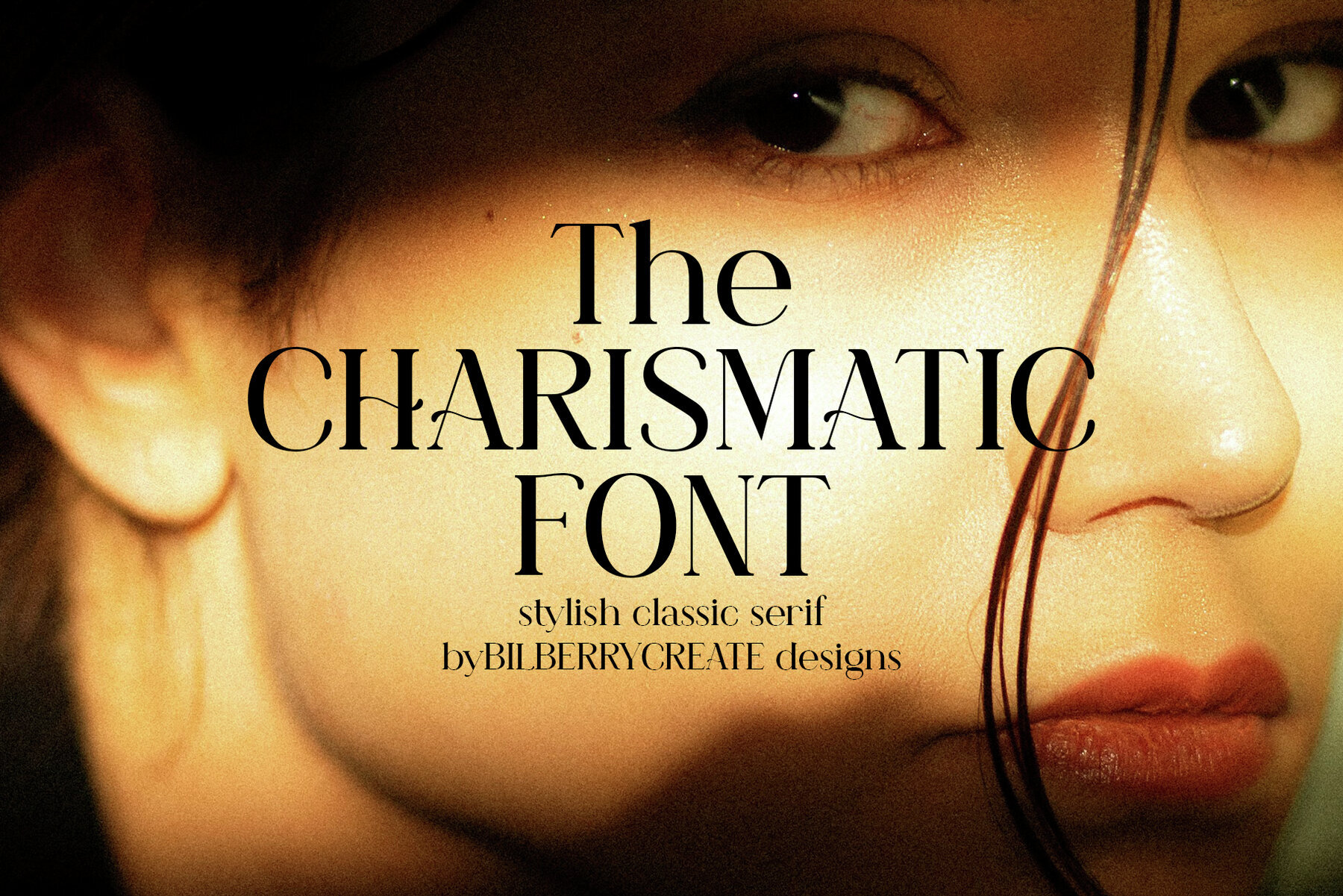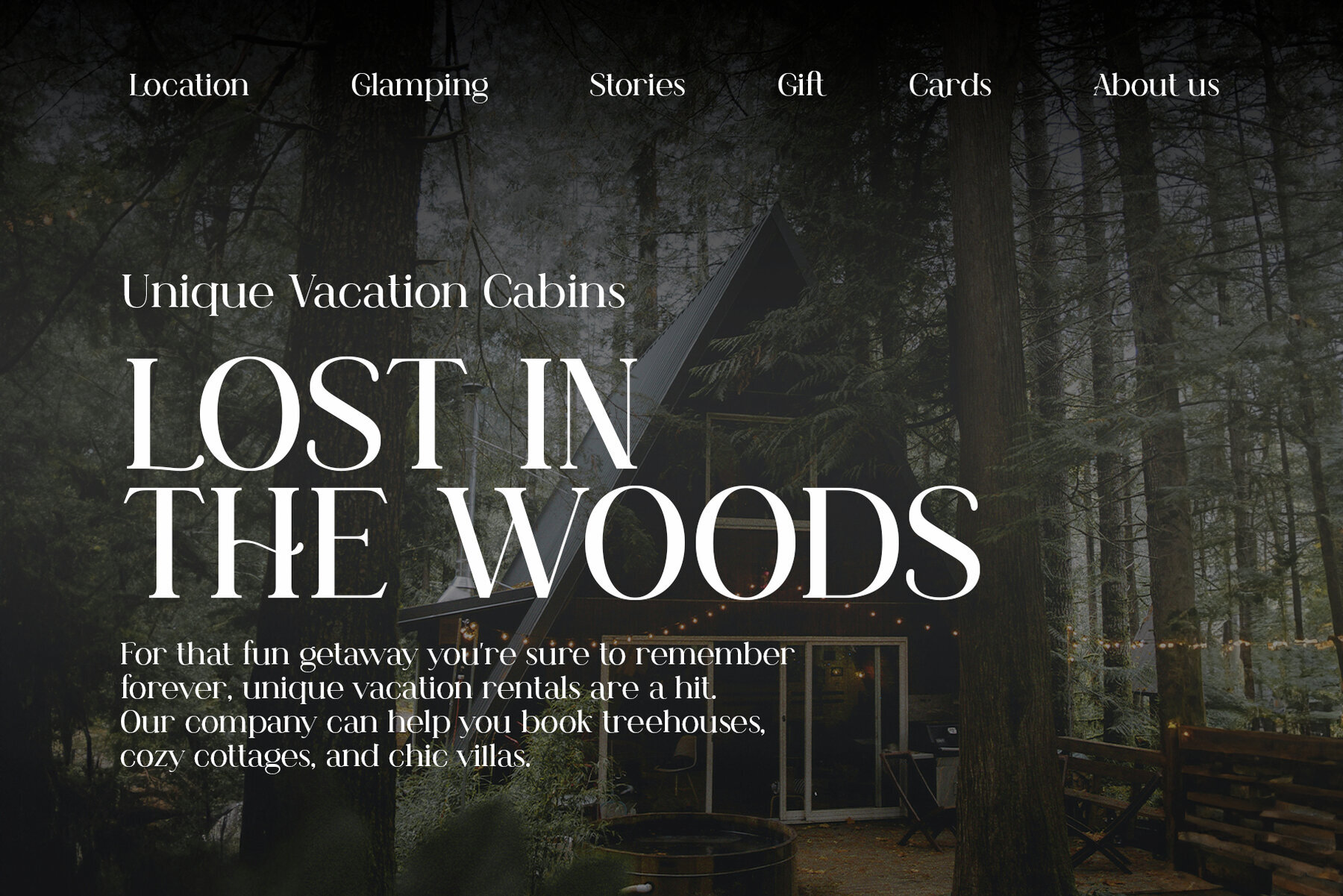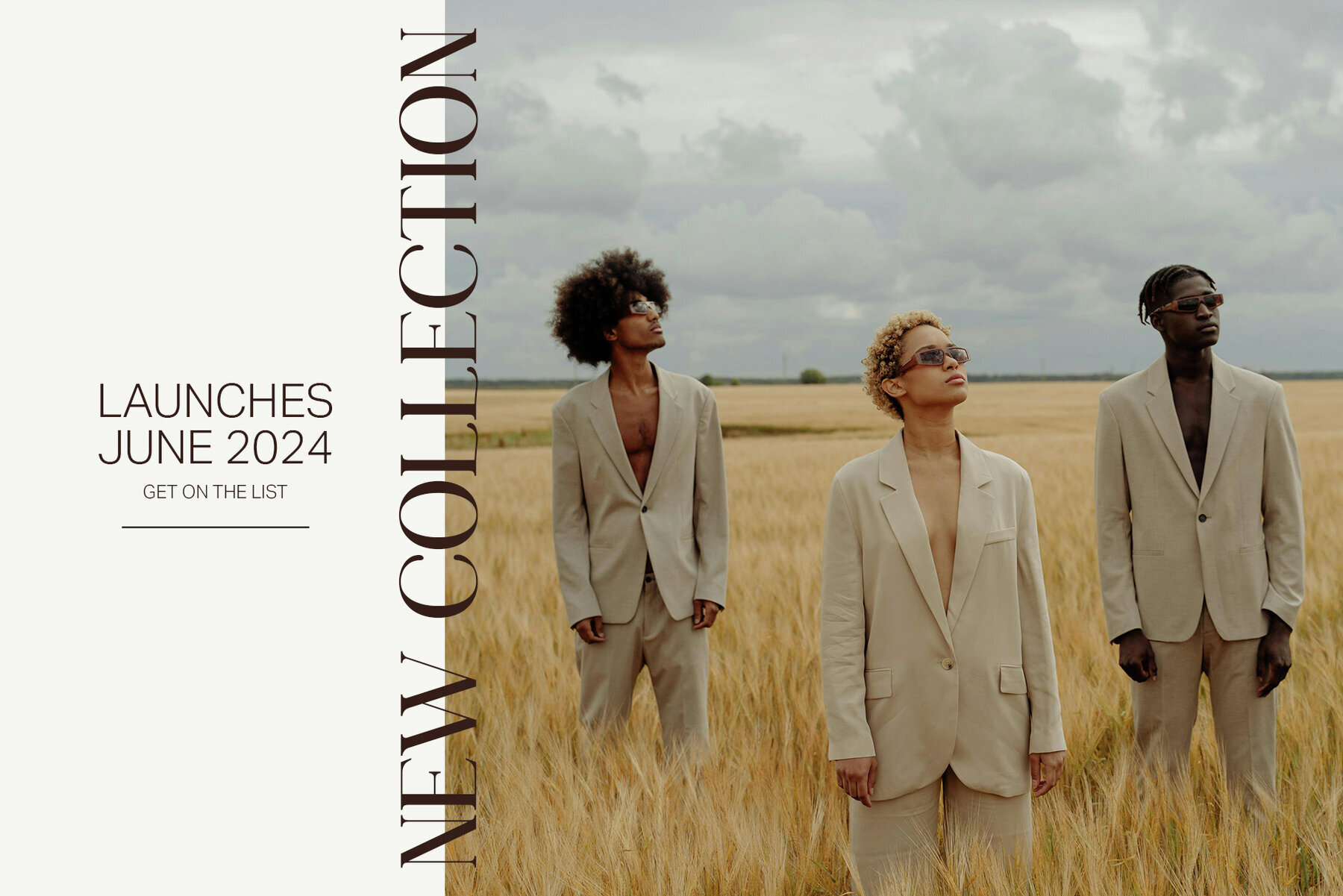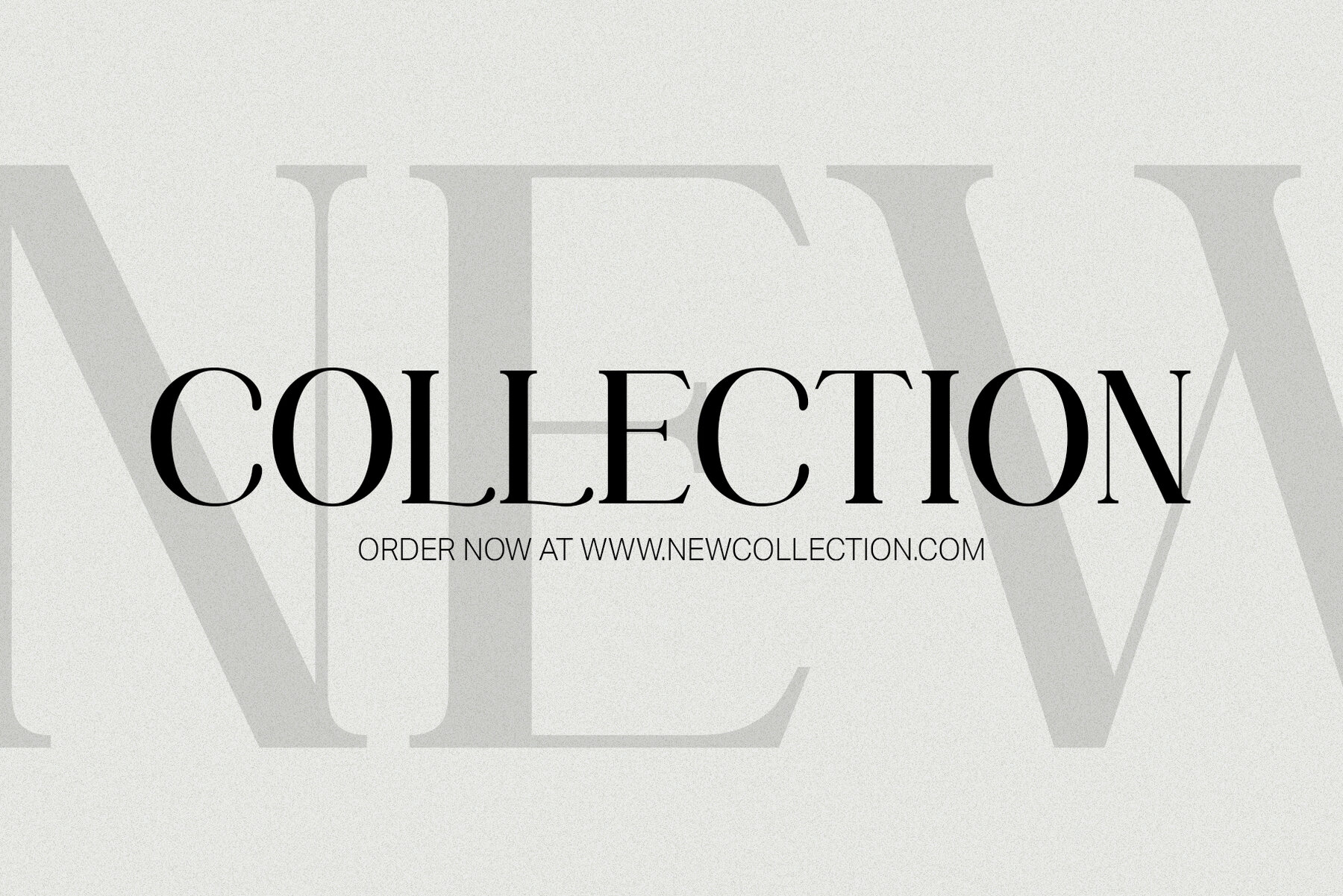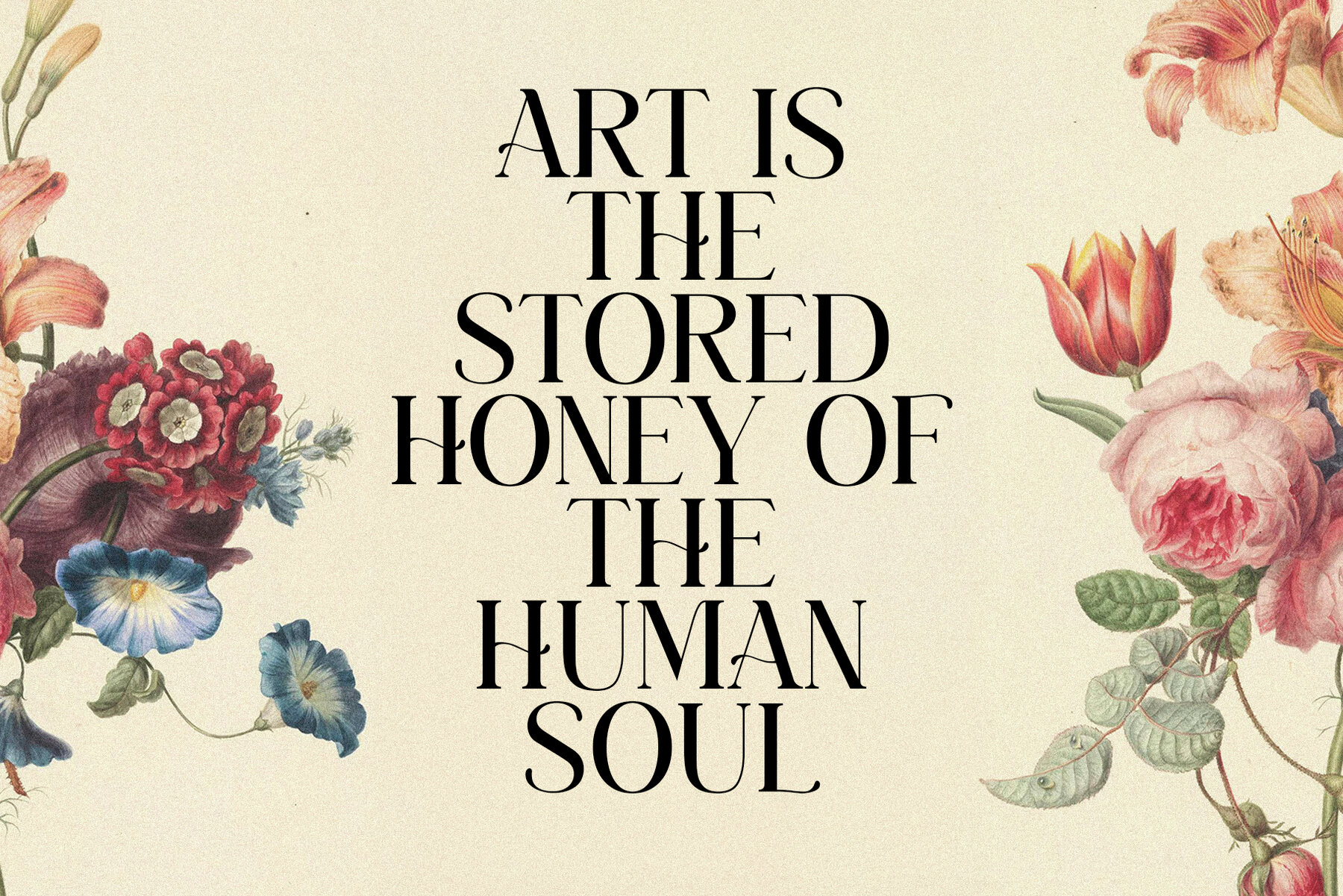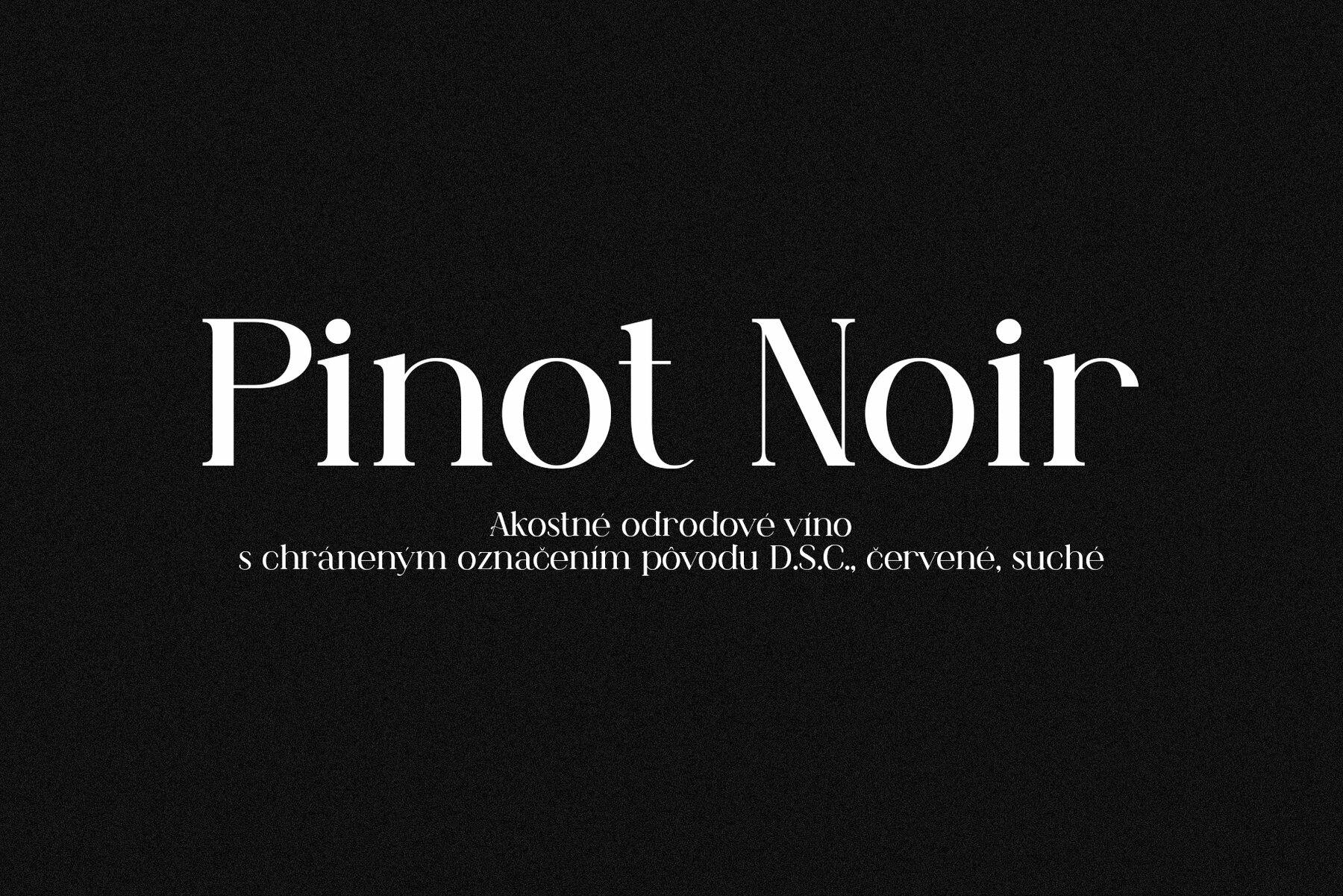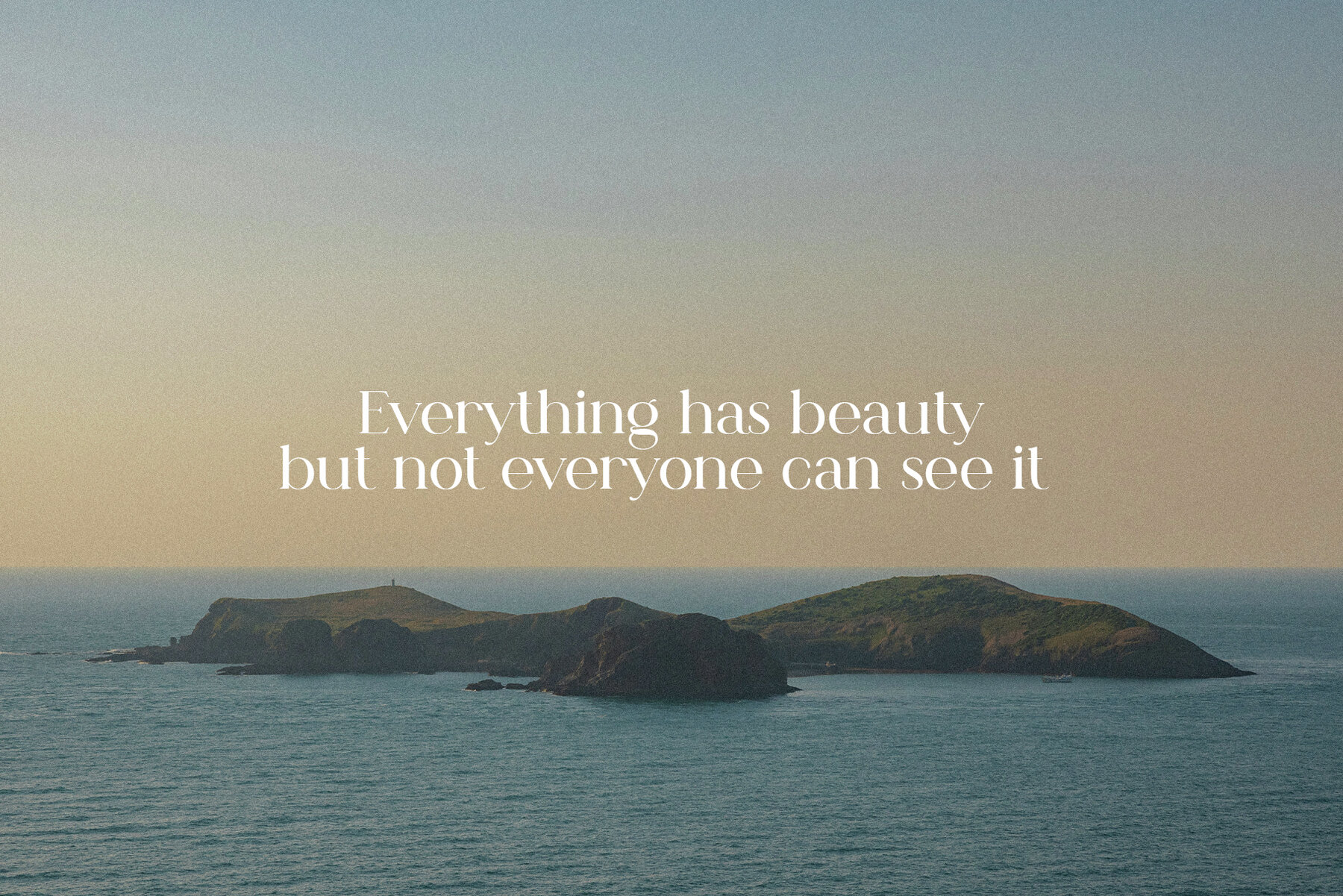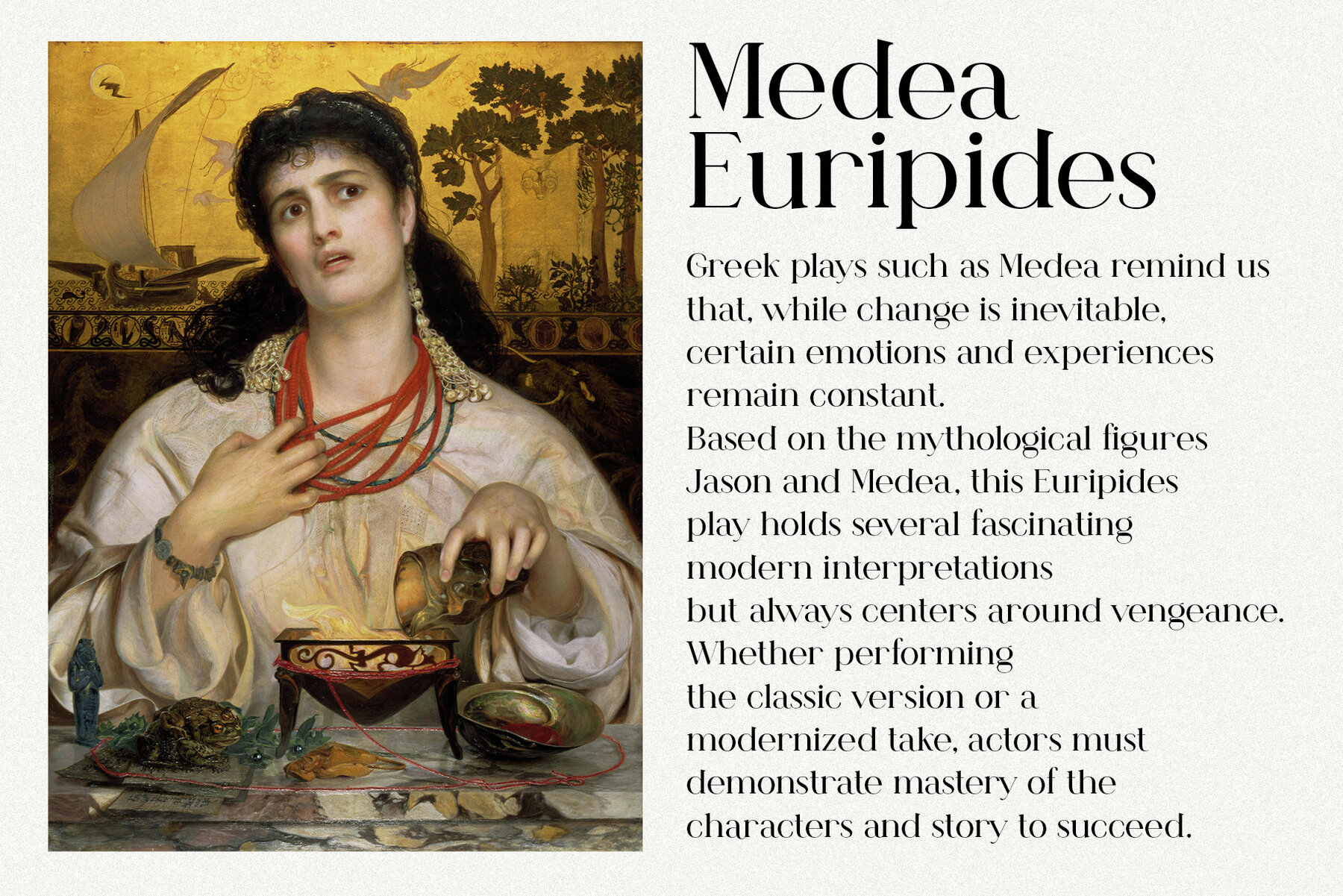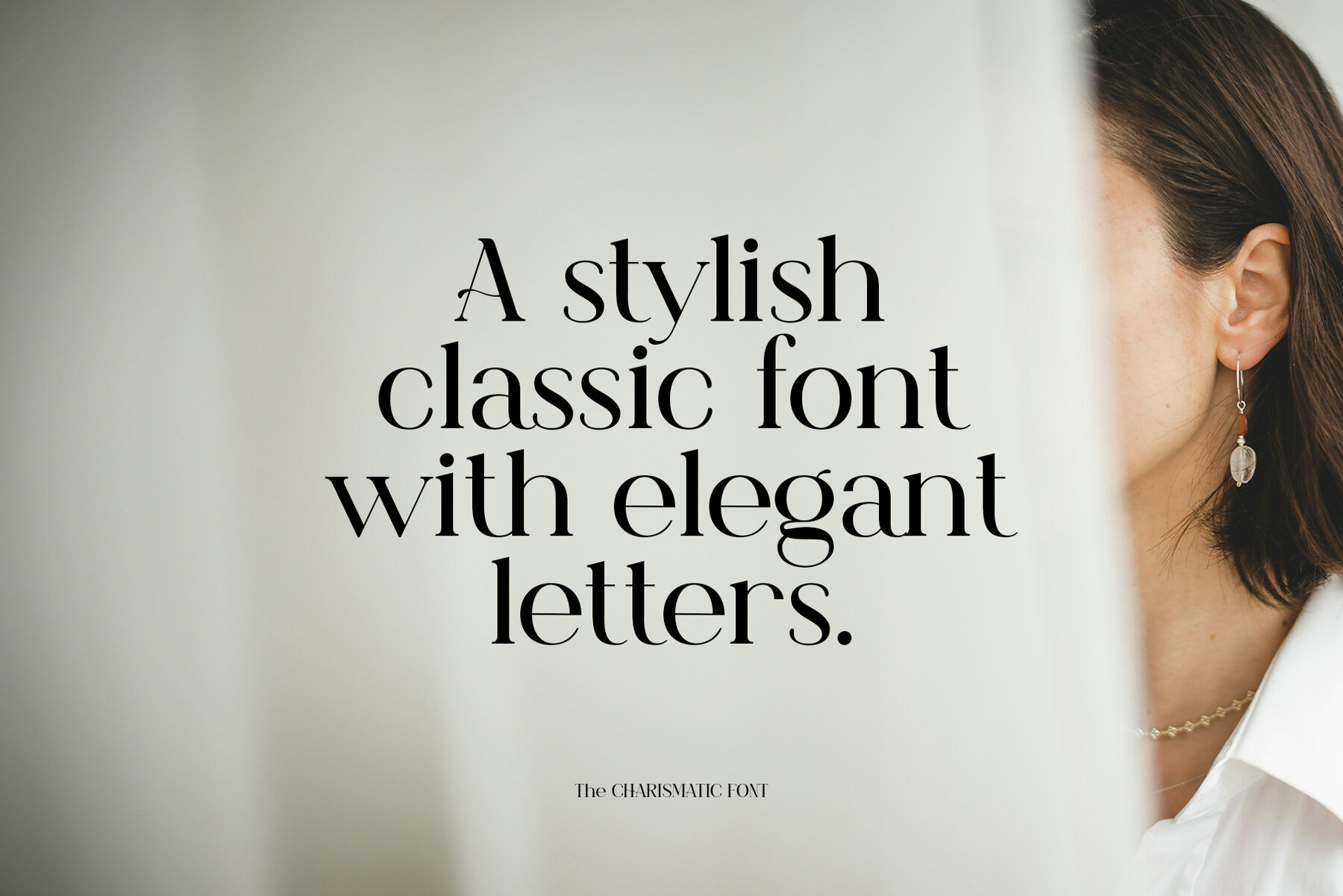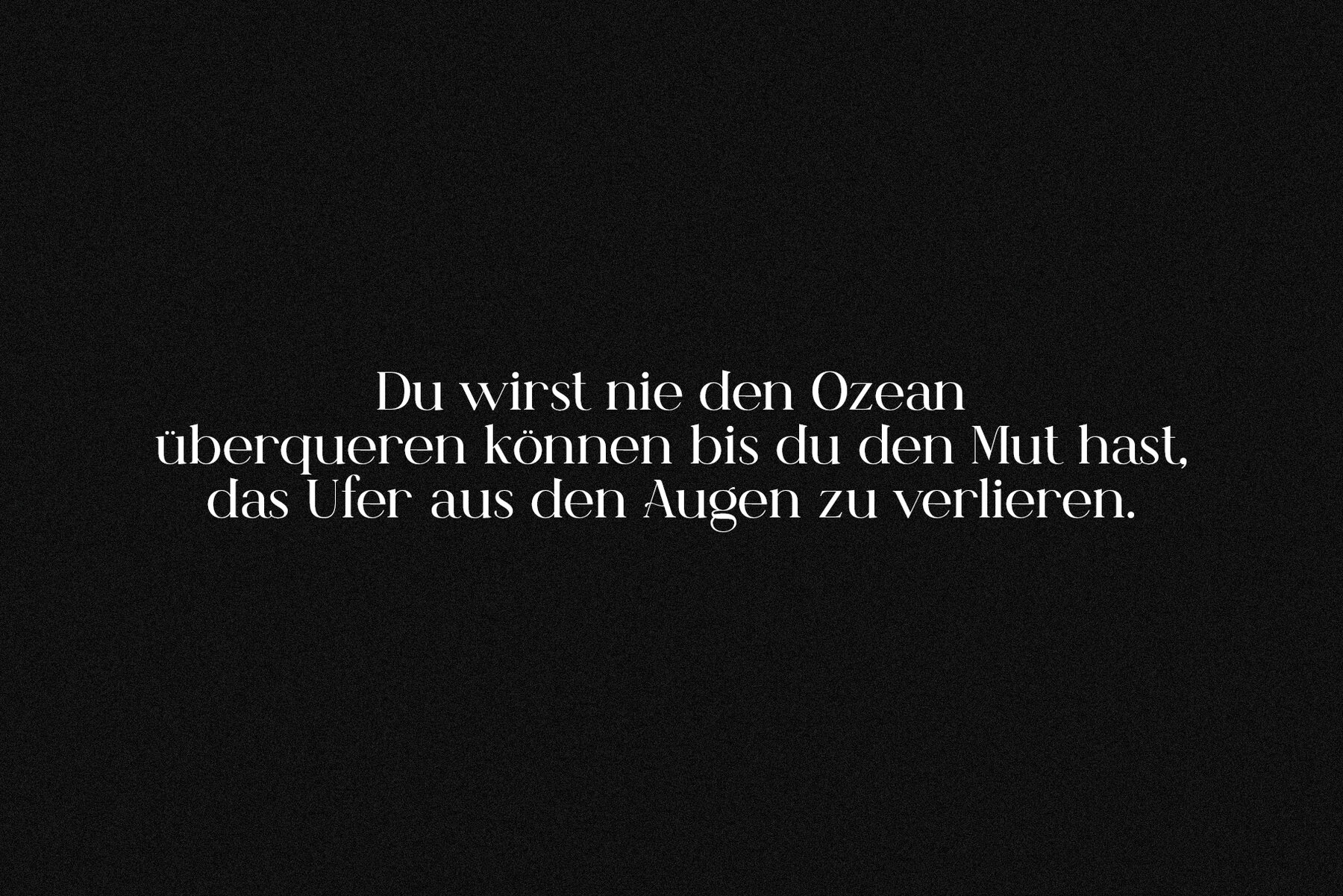
The Charismatic Font
Charismatic font Regular
The Charismatic serif font is a stylish and classic typeface designed to enhance your digital creations. Ideal for a wide range of projects, this font brings a touch of elegance to logos, invitation cards, scrapbooking, wedding cards, birthday cards, home decor, holiday gift packaging, party decorations, and fabric prints. Add uniqueness and beauty to your designs with The Charismatic serif font by Daria Cherniackova.